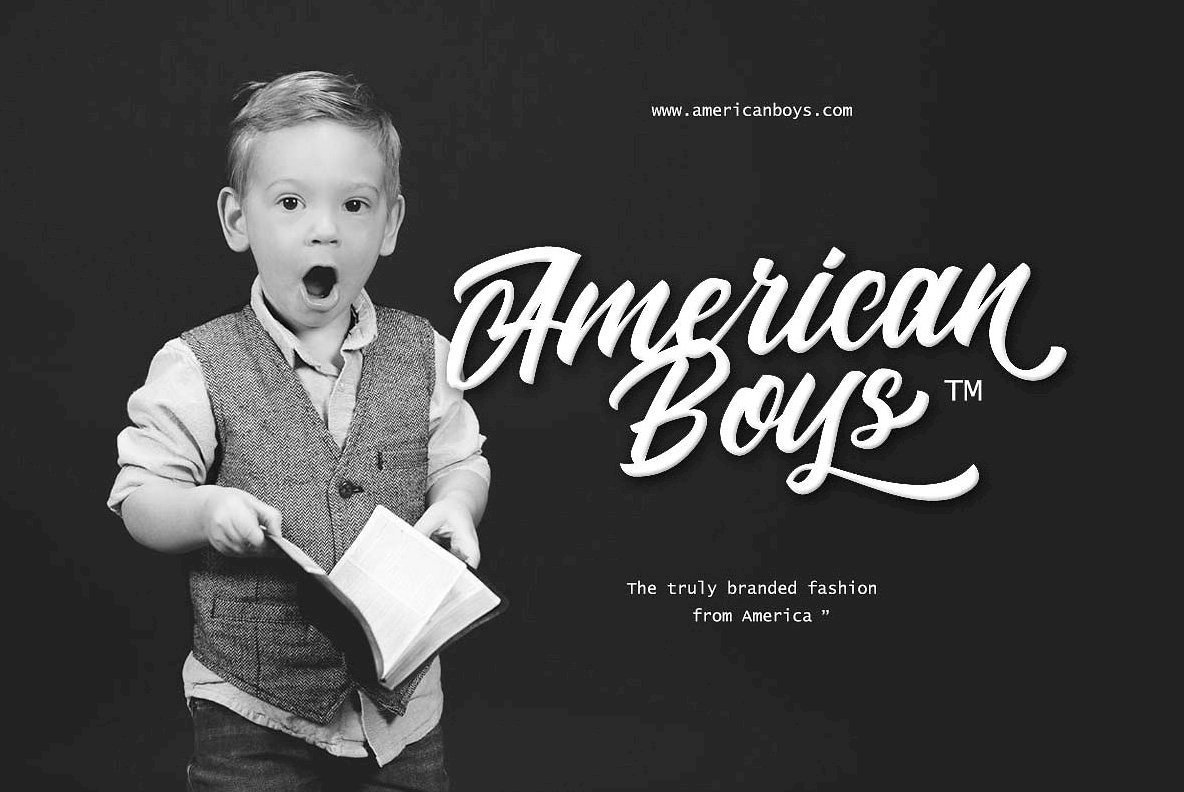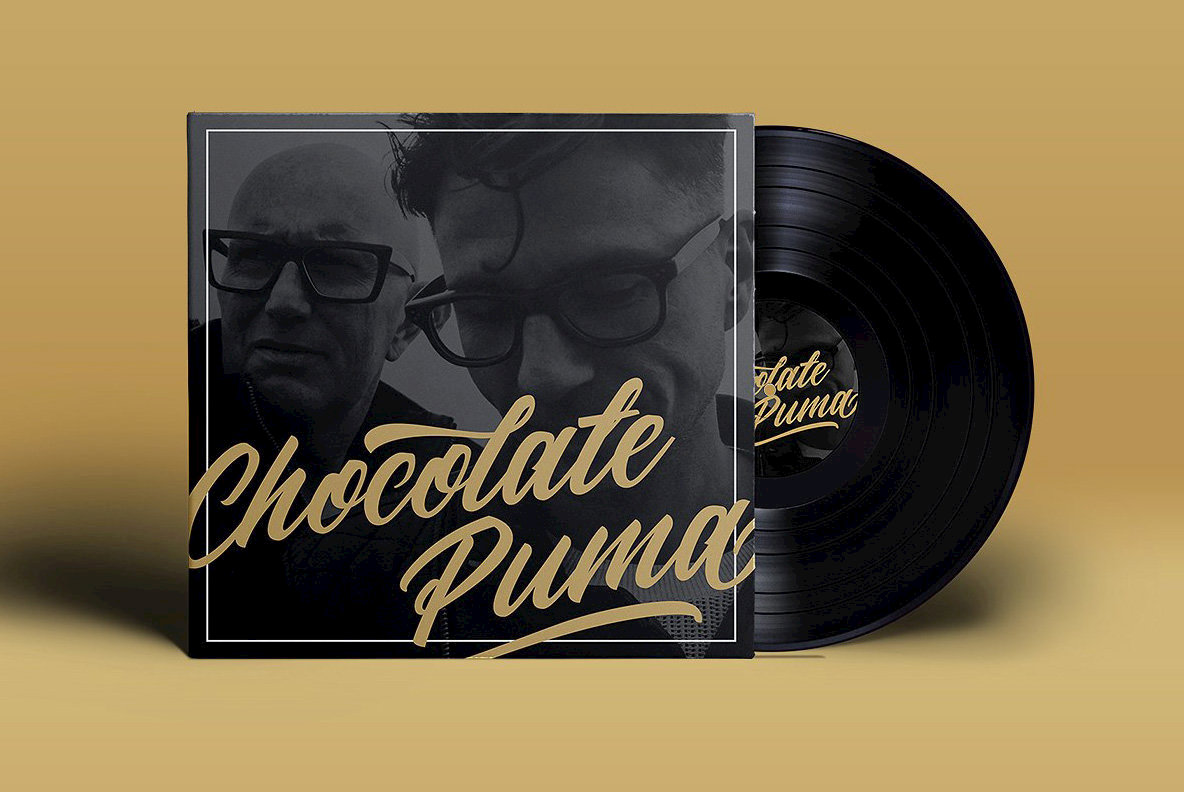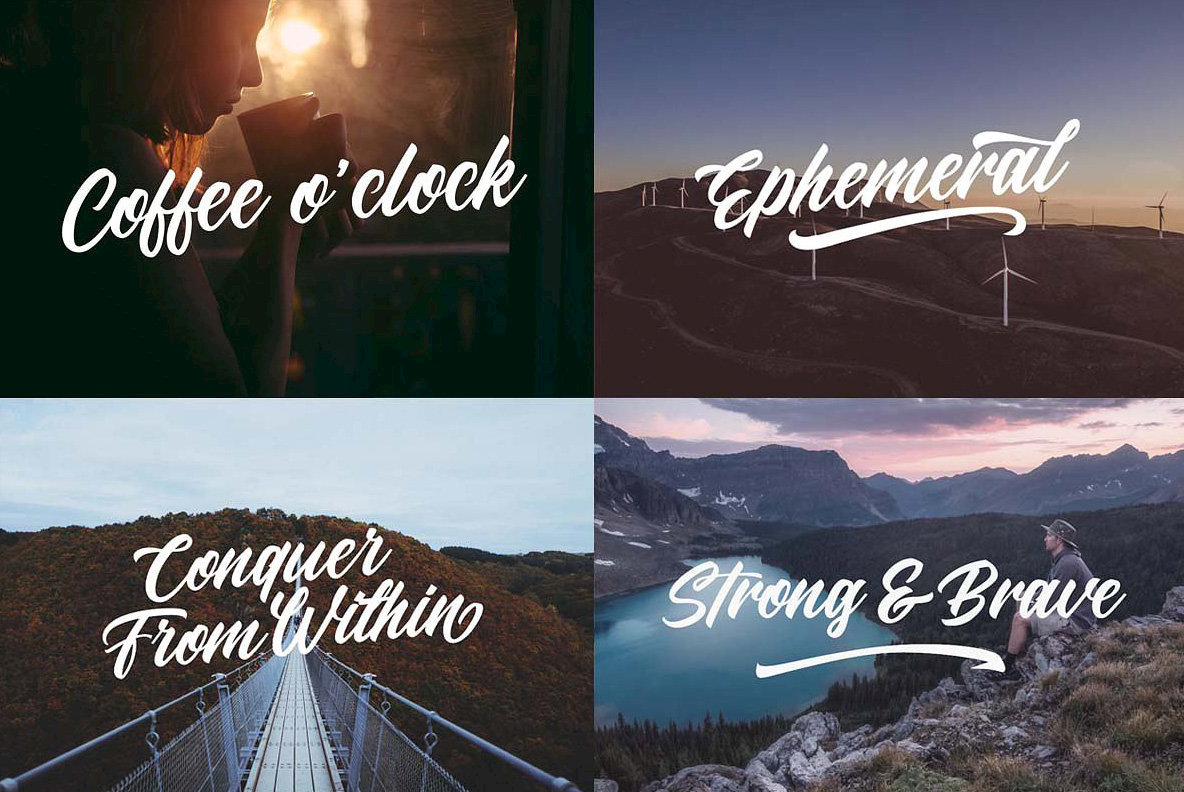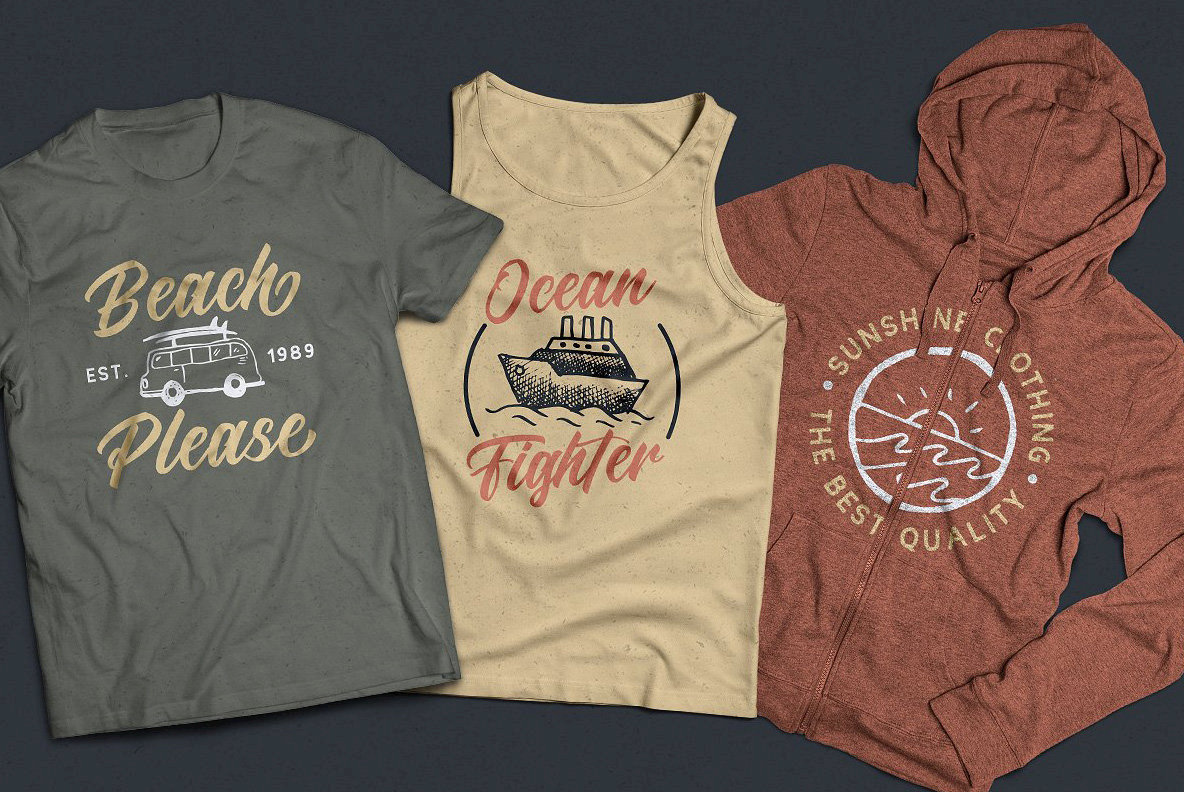
Larizo Font
Larizo is an elegant and slightly retro styled script design, published by Letterhend Studio. Larizo contains numerous OpenType features such as ligatures, stylistic alternates, contextual alternates, swashes, along with support for multiple languages.